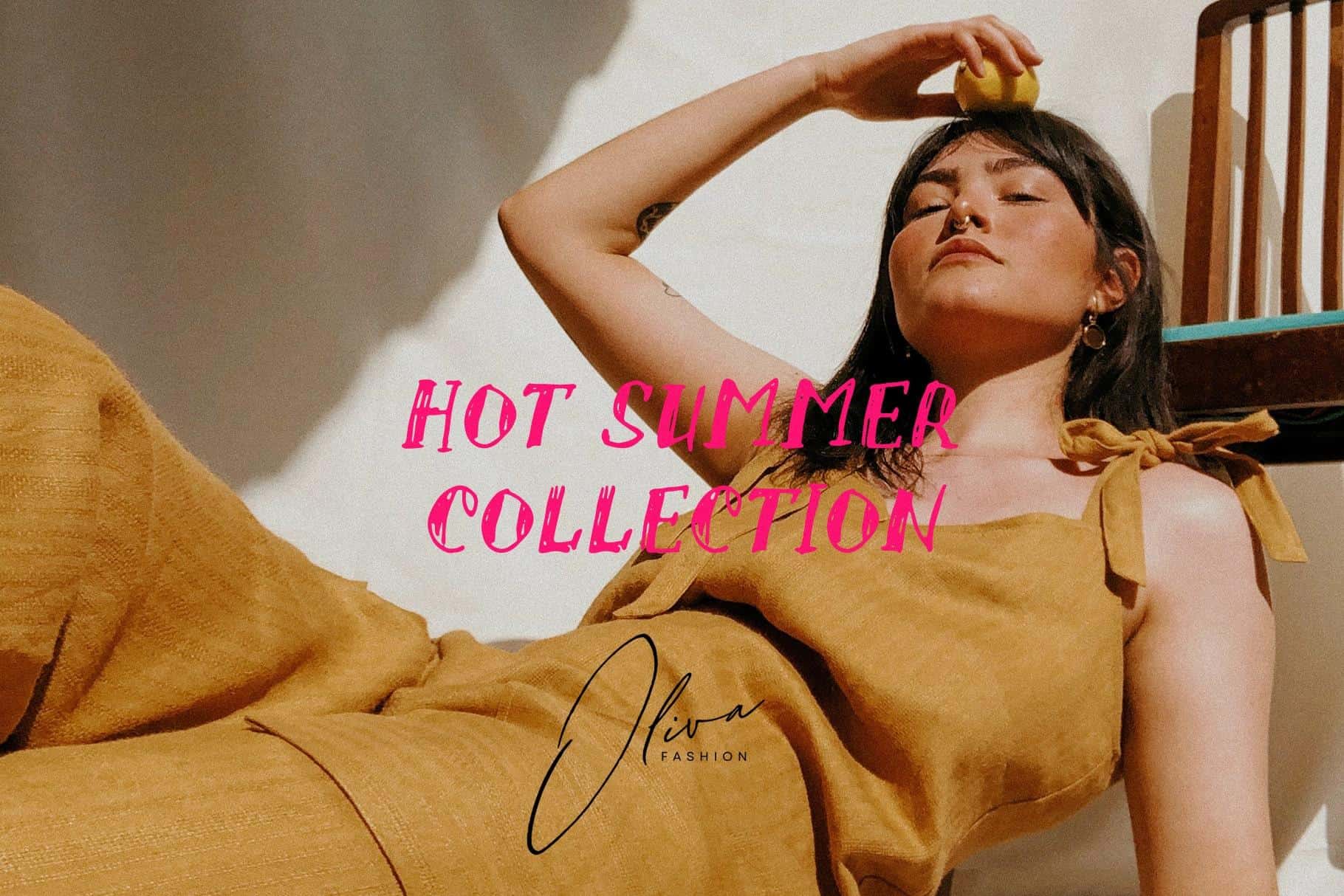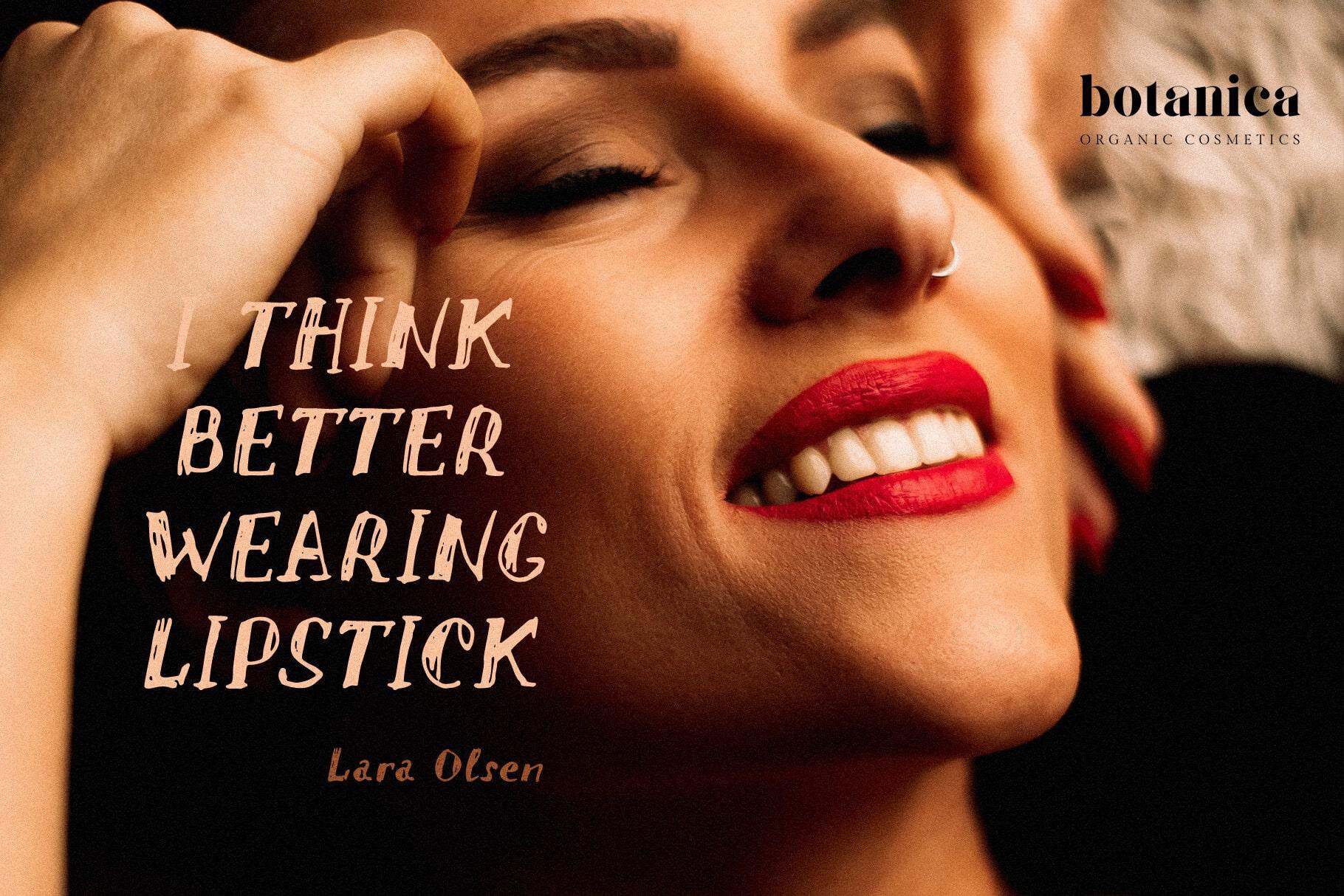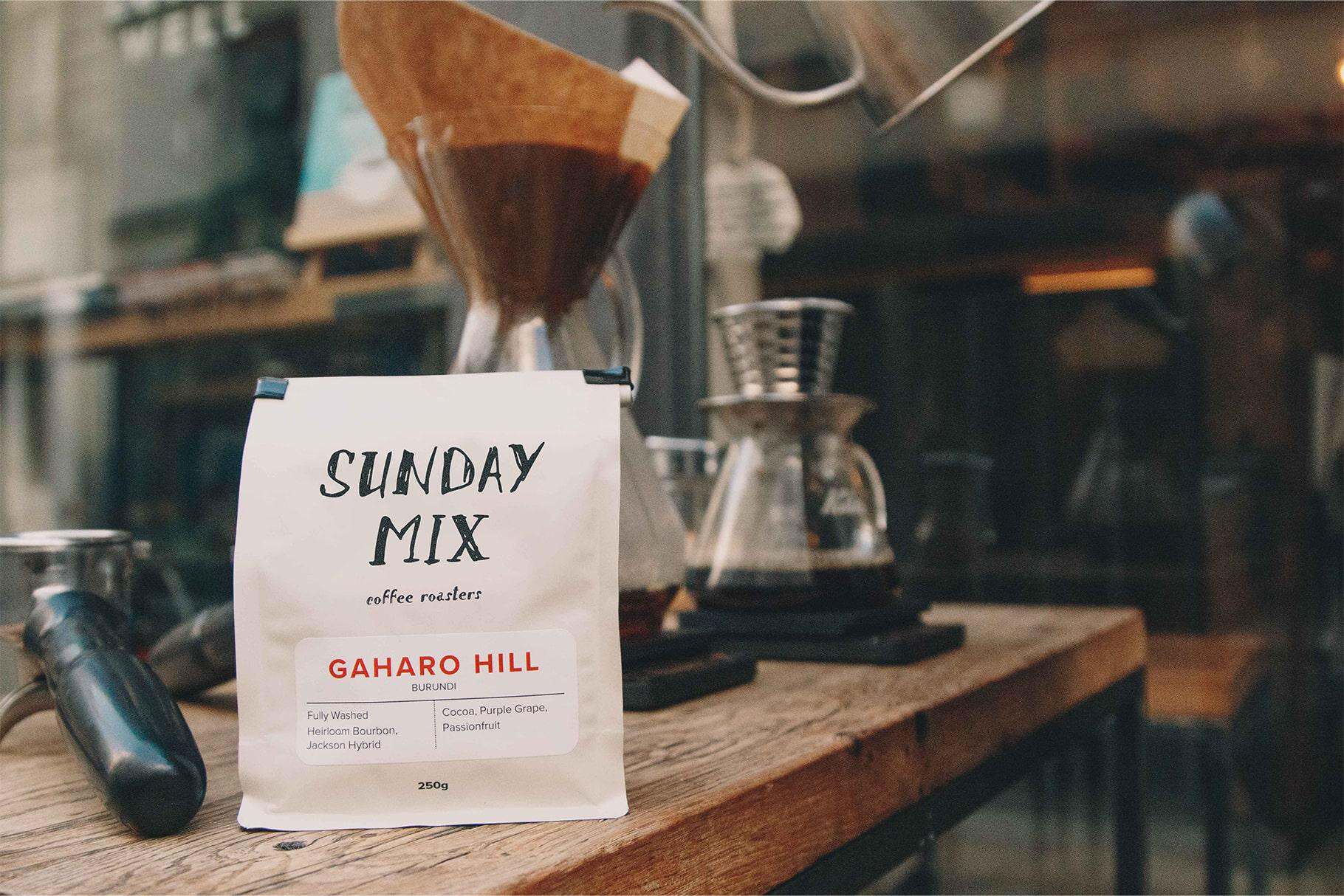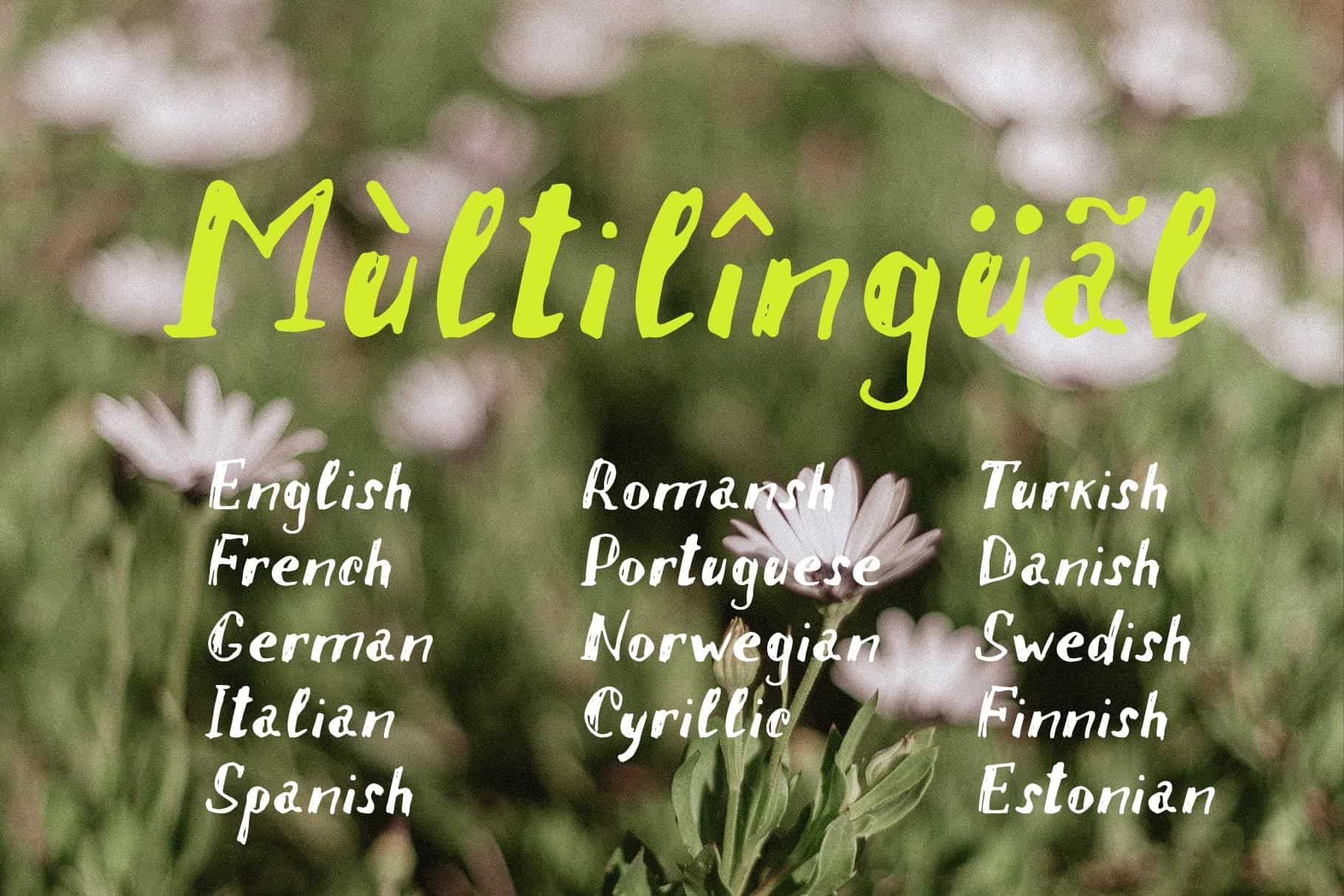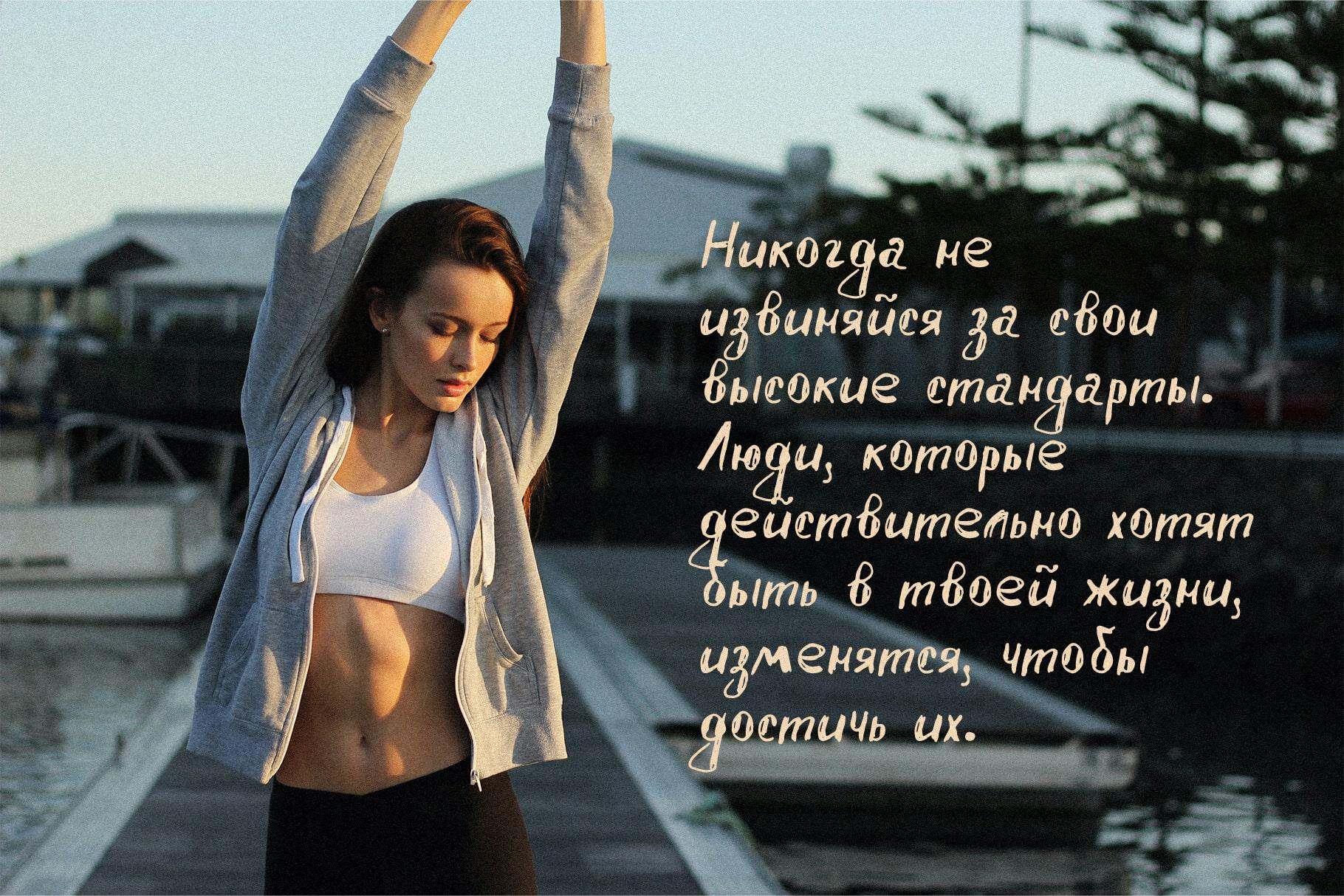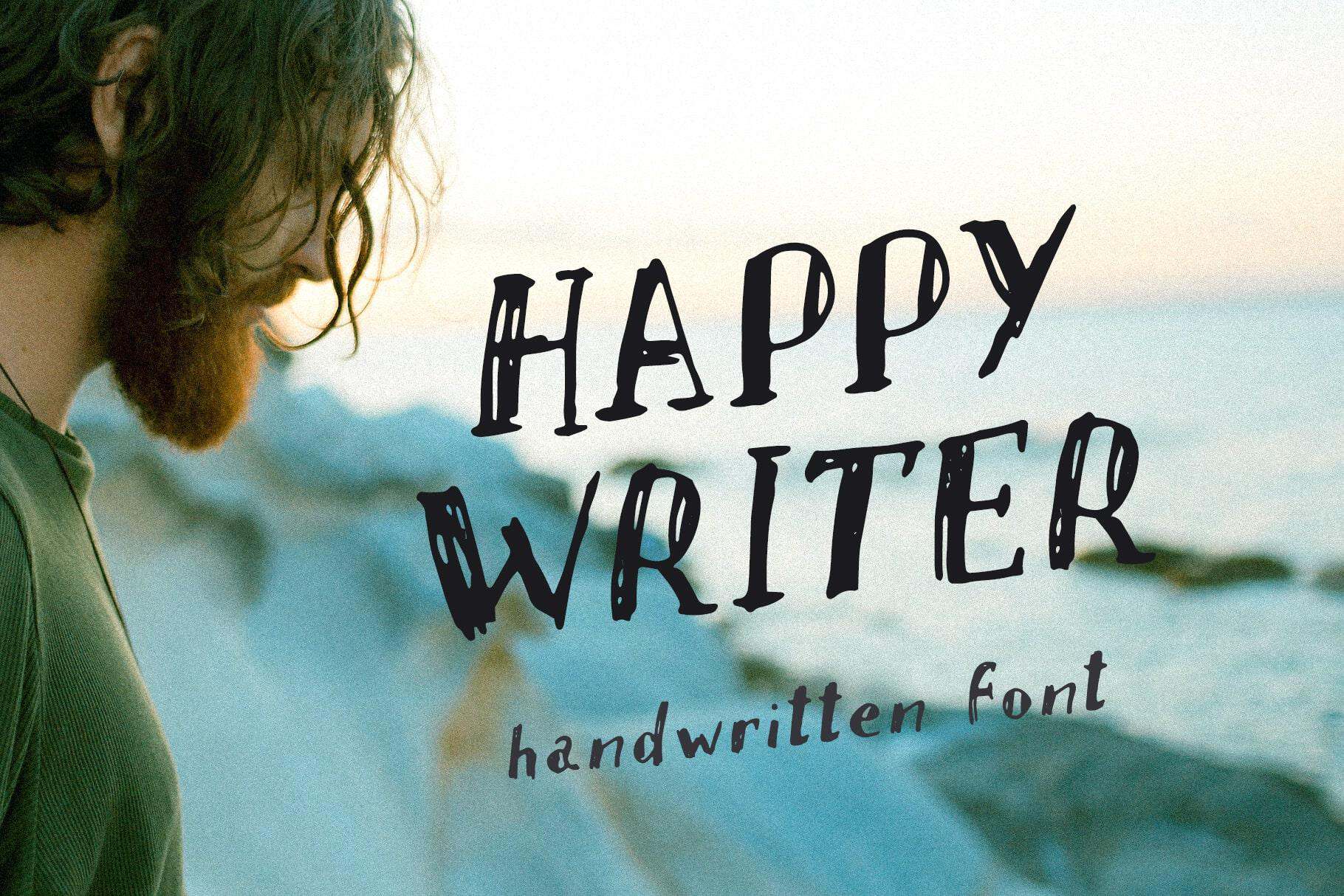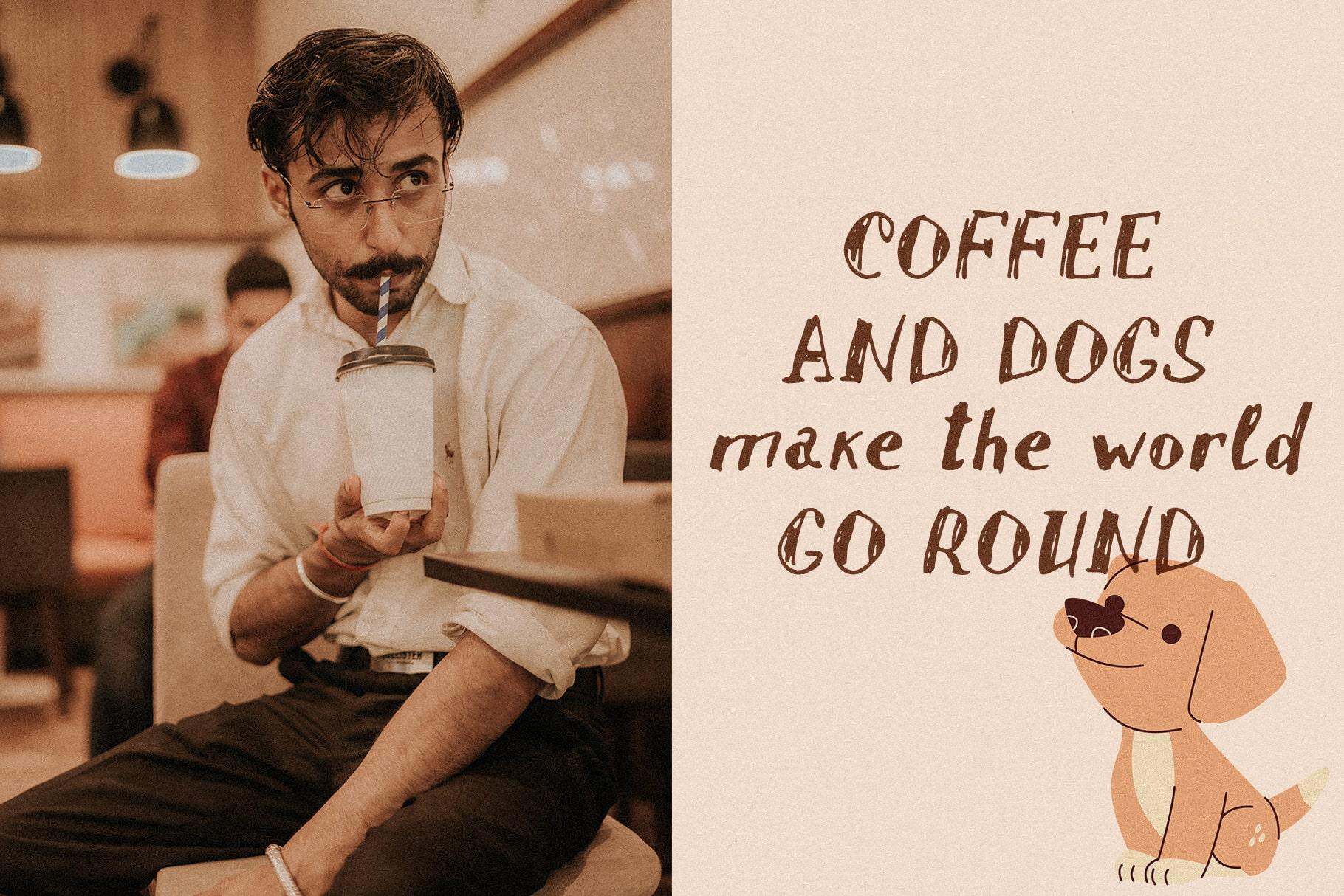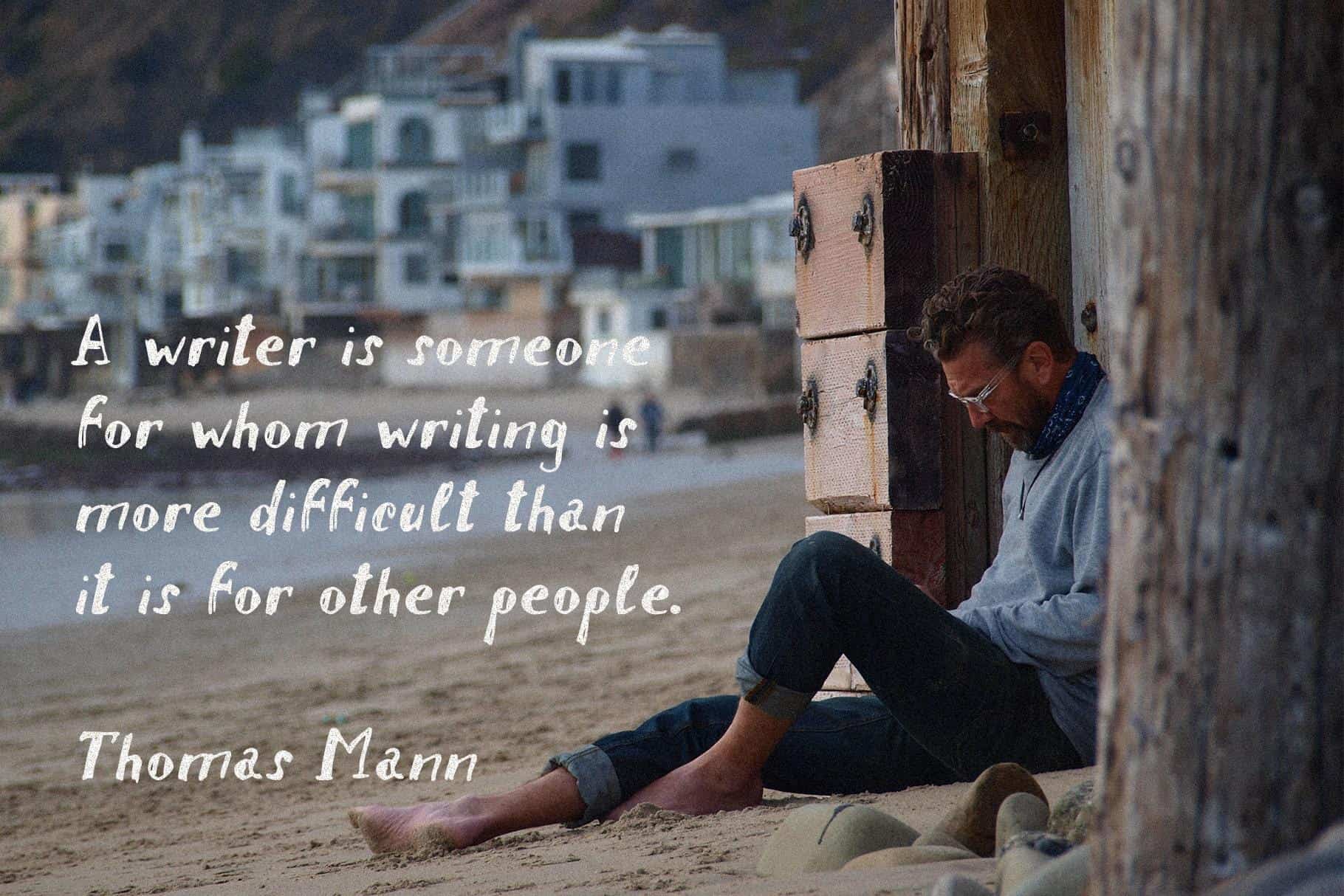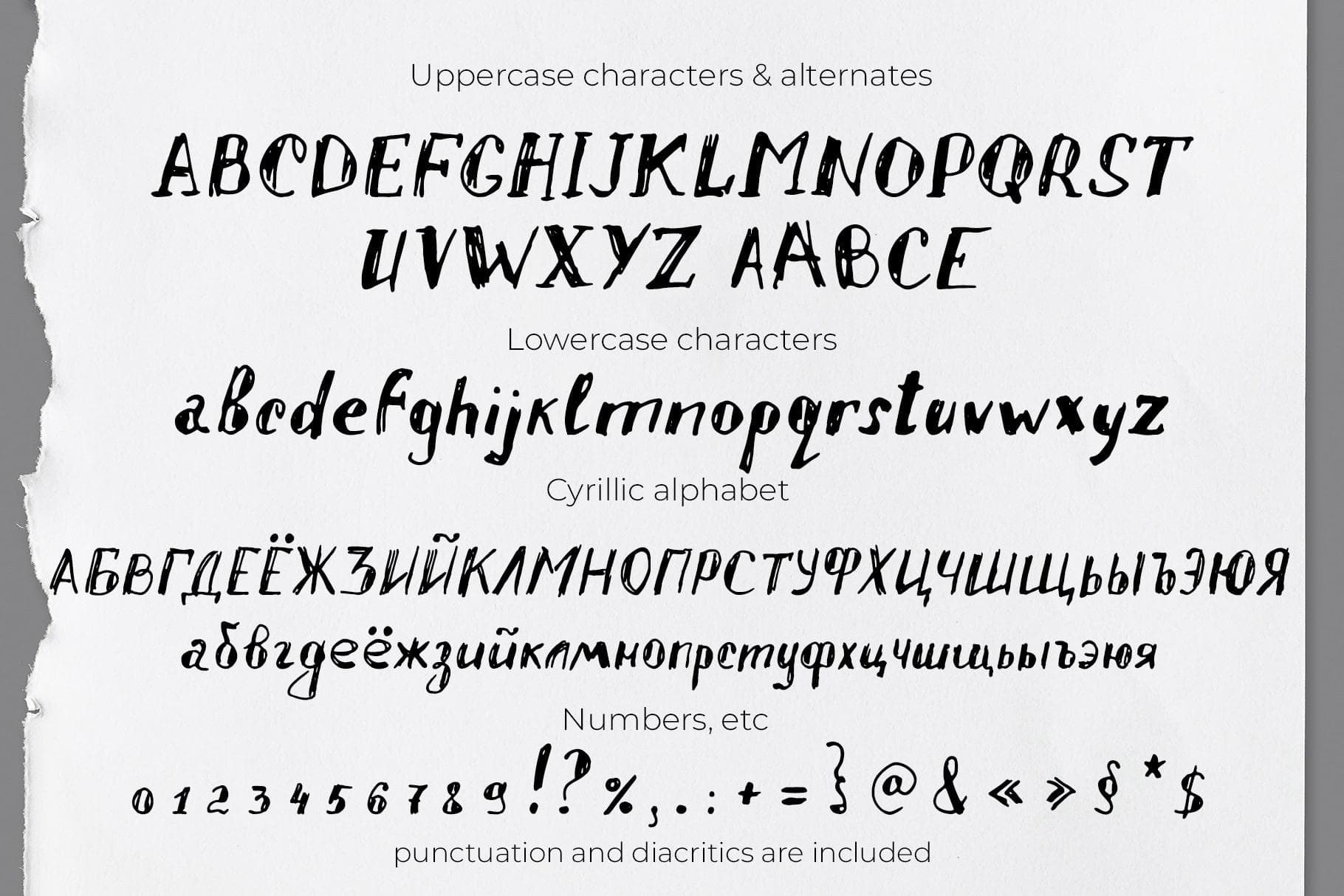
Happy writer handwriting font retro scribble
This is Happy writer — handwritten font written with pen and ink
This is Happy writer — handwritten font written with pen and ink. This is a story about an author who likes to write everywhere in the old-fashioned way, by hand, with a pen on paper, catching a special inspiration in this. This is a very cozy, slightly retro font with a alternative characters. Supports many languages, including Cyrillic.
The font is suitable for design for various things, including logo design, packaging, advertising, product design, websites, blogs and much more.
HAPPY WRITER has extensive language support, it includes English, French, German, Italian, Spanish, Portuguese, Danish, Norwegian, Swedish, Finnish, Estonian, Romansh, Turkish, Cyrillic.